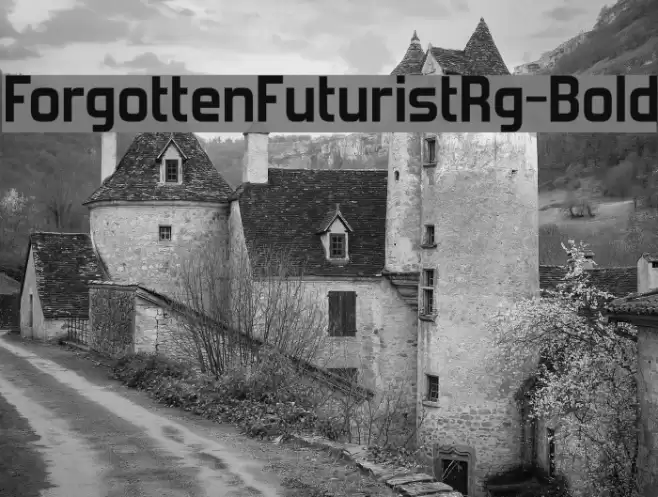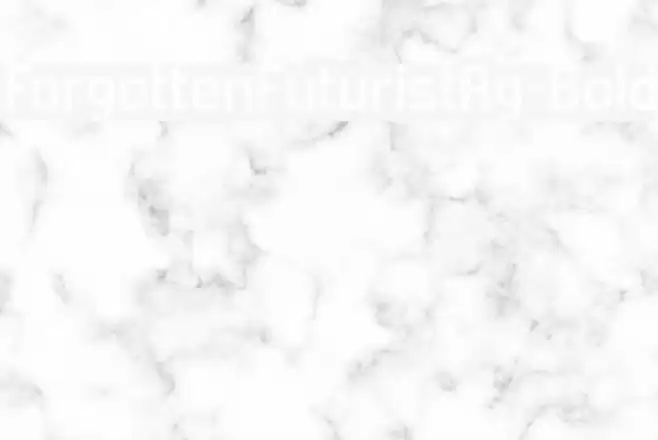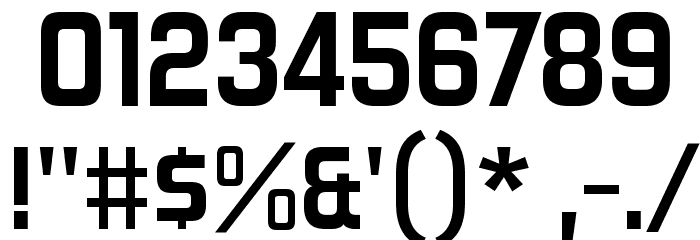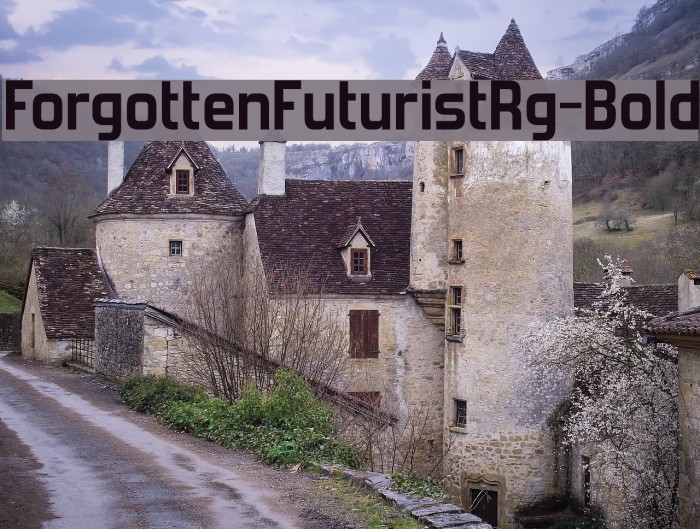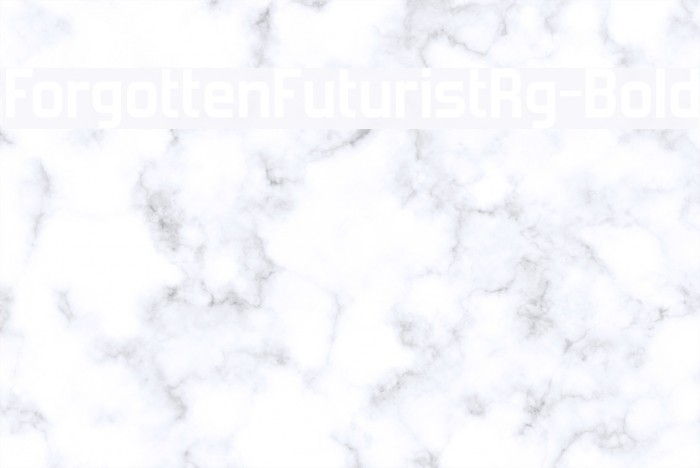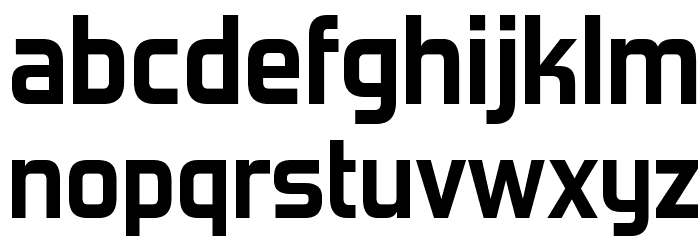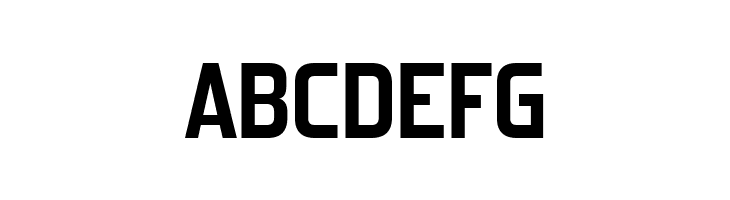
ForgottenFuturistRg-Bold Font
ForgottenFuturistRg-Bold Description
This typeface features a bold and modern design with a strong geometric structure. The characters are well-defined with a consistent stroke width, giving it a robust and confident appearance. The uppercase letters are tall and commanding, while the lowercase letters maintain a harmonious balance with rounded edges that soften the overall look. The numerals are clear and legible, making them suitable for various applications. Special characters are included, enhancing its versatility. The font's clean lines and contemporary style make it ideal for projects that require a futuristic and professional touch.
A bold, modern typeface with geometric structure and consistent stroke width from Formal fonts.
- Proposed Projects: Ideal for branding, advertising, digital interfaces, and editorial design.
- Use Case: Headlines, Logos, Digital Interfaces